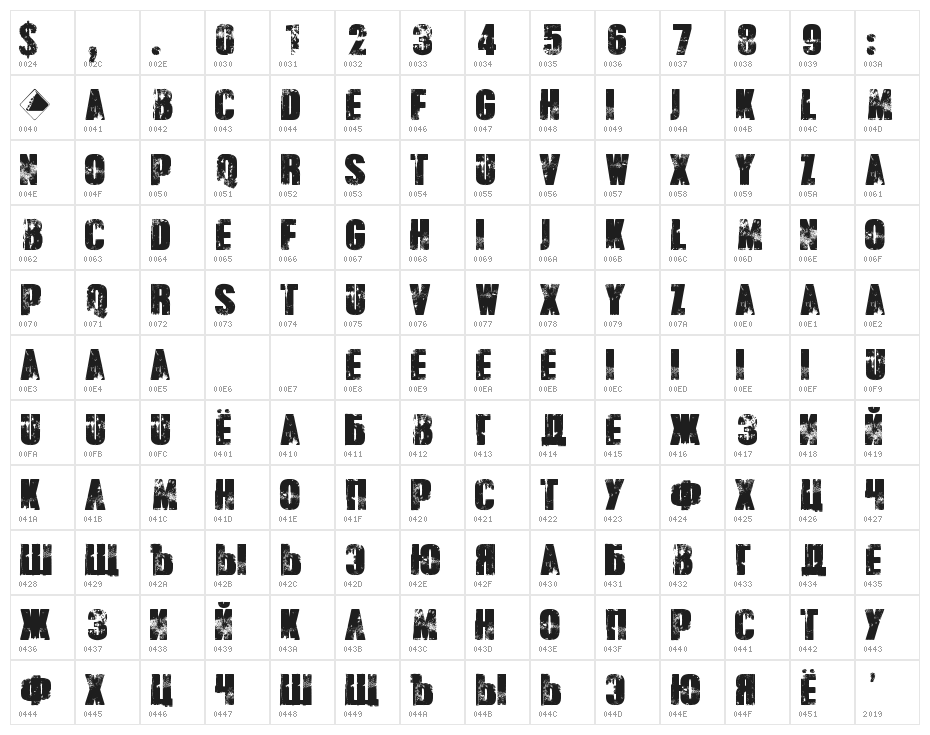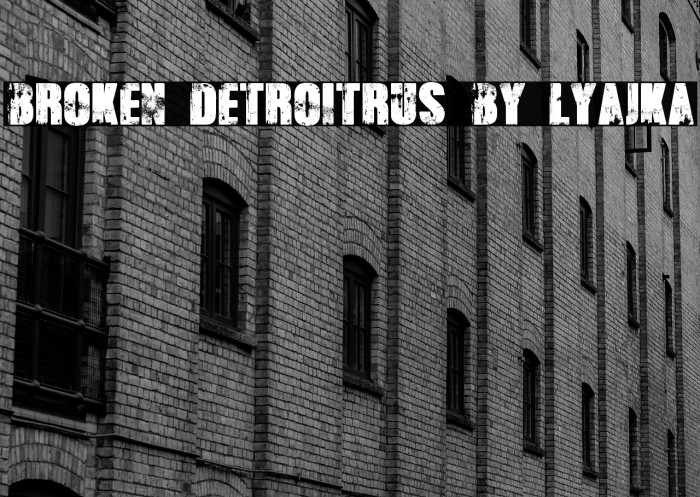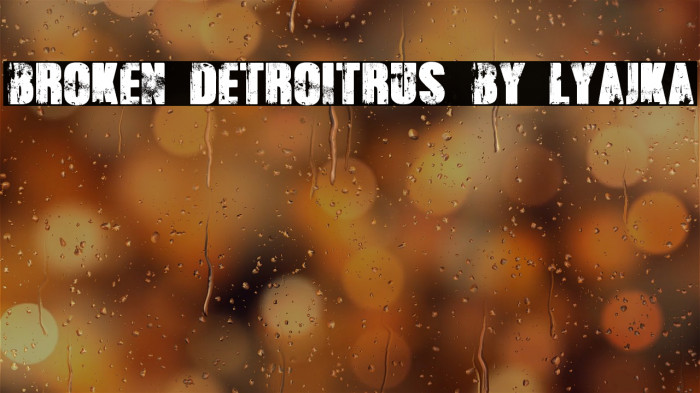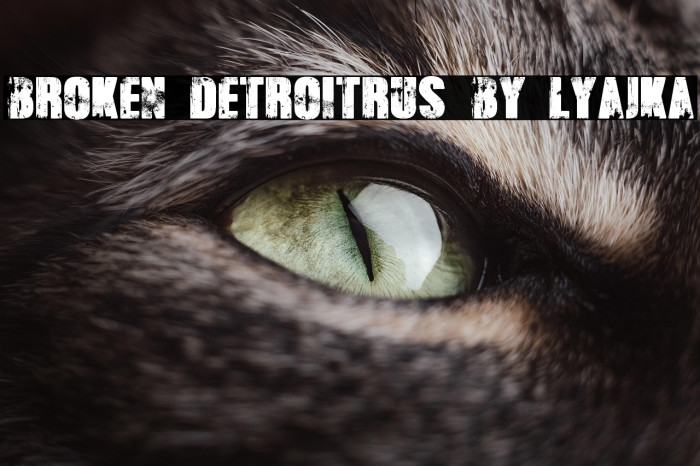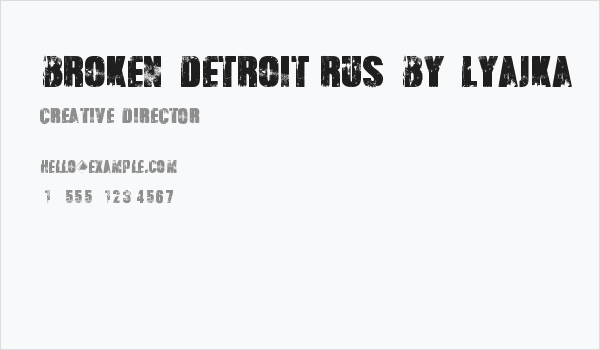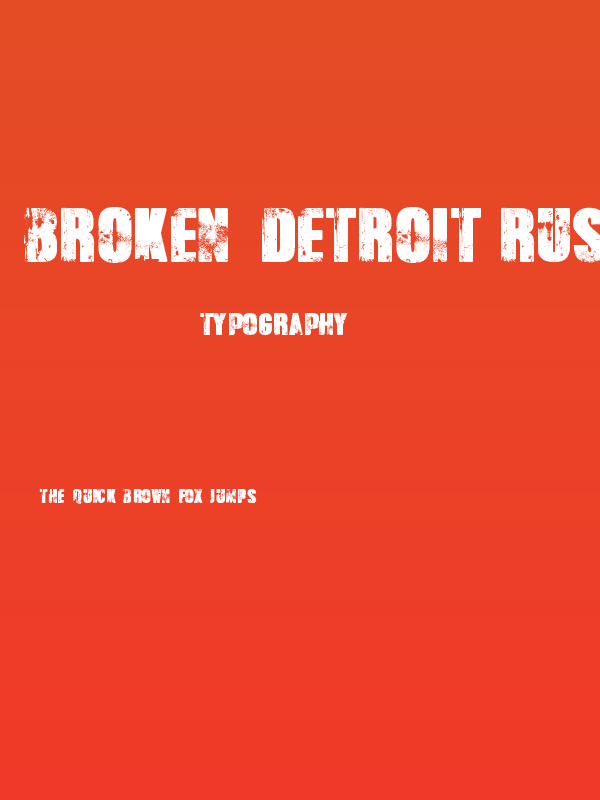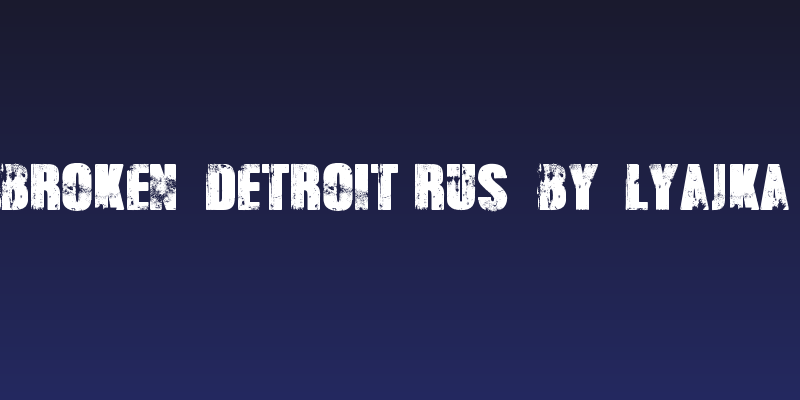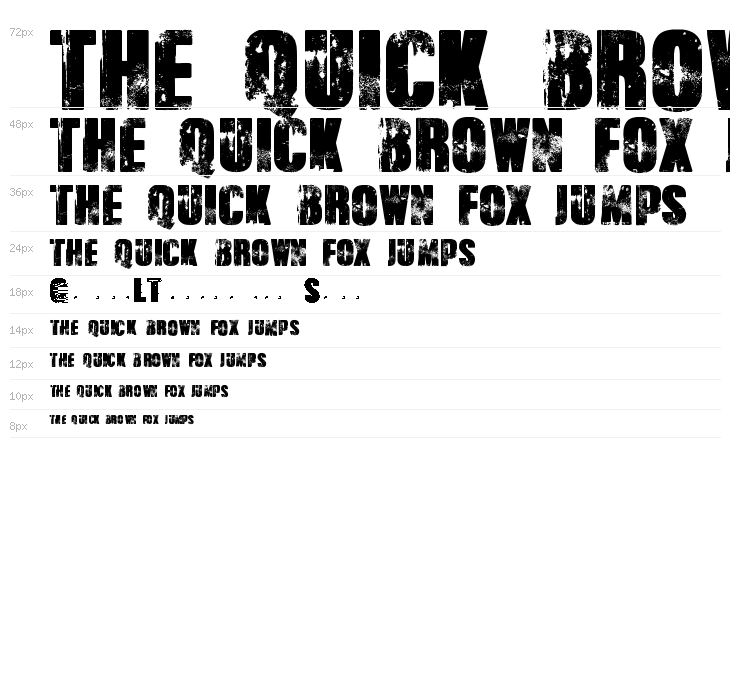
Broken Detroit(RUS BY LYAJKA) Font
Broken Detroit(RUS BY LYAJKA) Description
This font features a rugged, distressed style with a bold and impactful presence. Each character appears as if it has been weathered or eroded, giving it a gritty, urban feel. The uppercase letters are prominent and commanding, while the numbers and special characters maintain the same distressed aesthetic. The texture adds a layer of complexity, making it ideal for projects that require a raw, industrial look. Despite its rough appearance, the font maintains legibility, making it suitable for headlines and attention-grabbing text.
| Overall Style | Urban, Industrial, Distressed |
| Proposed Projects | Ideal for posters, album covers, streetwear branding, and urban-themed designs. |